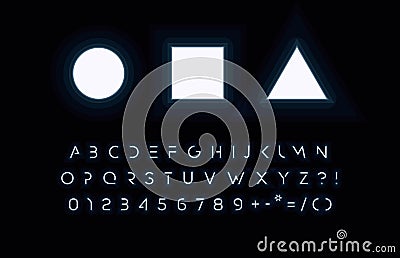
Futuristic space neon font inspired by squid game series.Cropped cutout letters and numbers for technology design, UI #233797008
Futuristic space neon font inspired by squid game series. Cropped cutout letters and numbers for technology design, UI, HUD display font, music and cinema cover headline, logo. Vector typography.